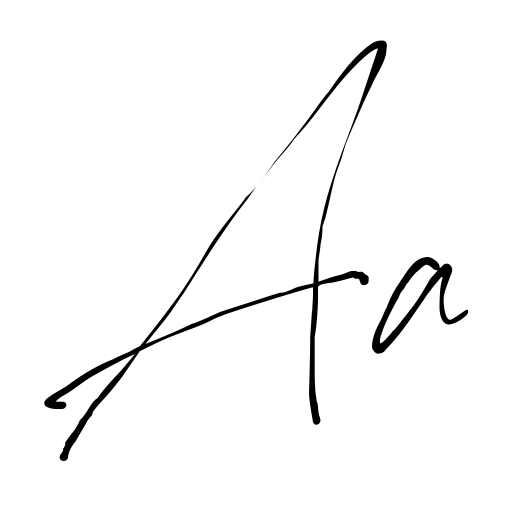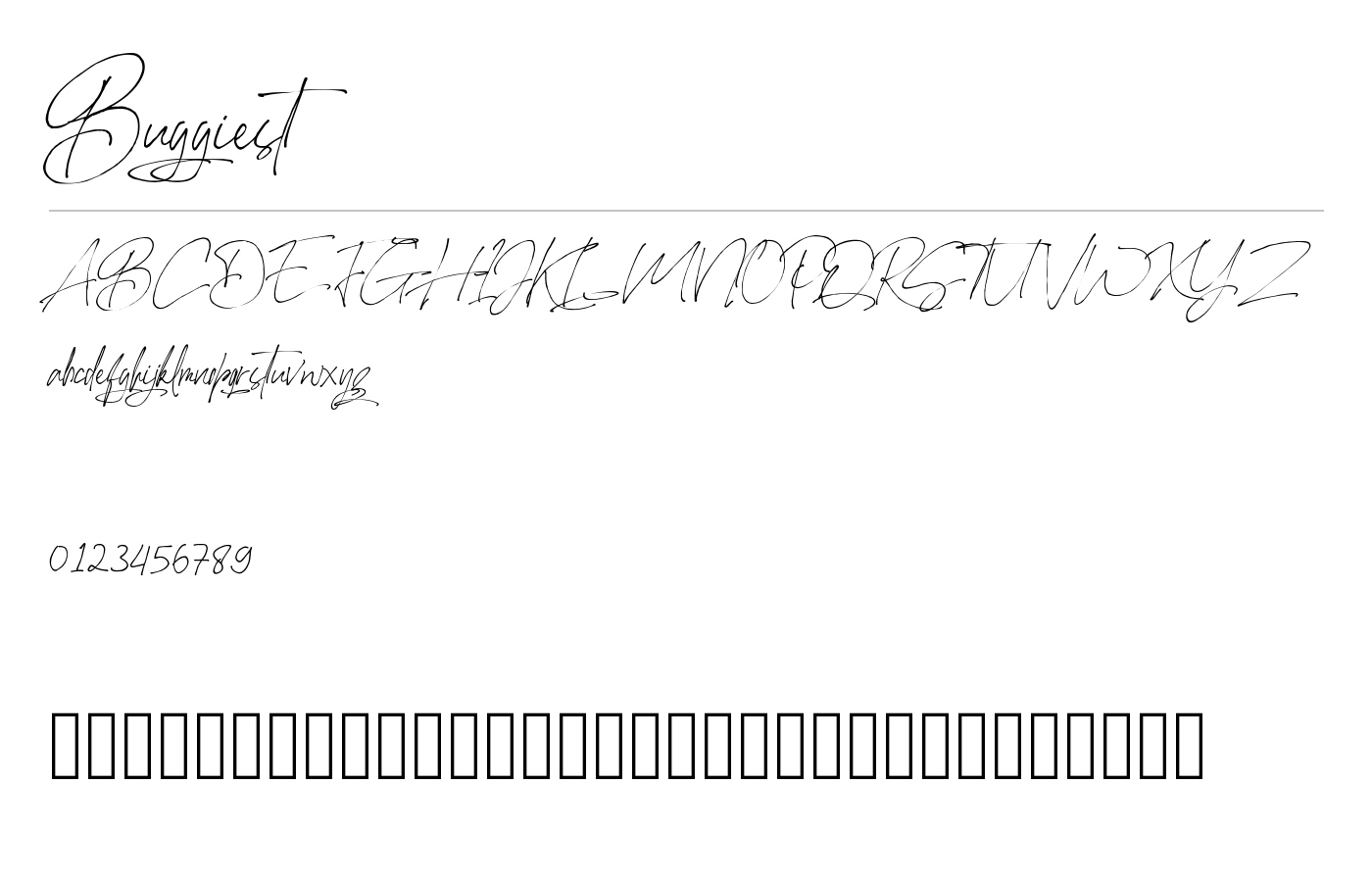
Buggiest Font is a delicate, handwritten script featuring intricate, flowing letterforms that mimic natural penmanship with an elegant yet slightly chaotic feel. Its thin strokes and tall, narrow proportions give it an airy, artistic personality ideal for creative projects like invitations, personal branding, or fashion editorials where a unique, expressive touch is desired. This font excels in large display use, adding a graceful, intimate style to designs that benefit from a handcrafted, whimsical look.
Buggiest Font
About Buggiest Font